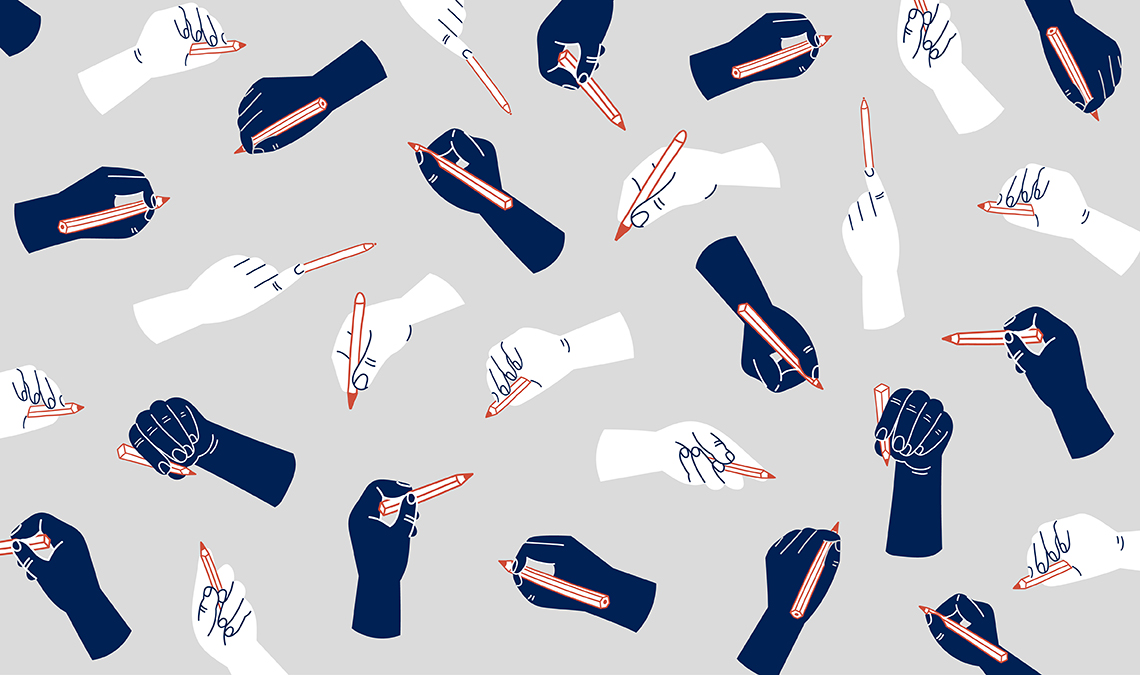
State of handwriting education
At TypeTogether, we are currently conducting research into the state of handwriting education for the Latin script, and we would appreciate your help.
Our goal is to create a free and open-source resource for the typographic and educational communities, offering a comprehensive view of how cursive writing is taught around the world and what letterform styles are used for its instruction.
To better understand how cursive writing instruction happens in real classrooms, we need the help of those who can give us a peek into the handwriting models and teaching methods employed in local schools, the textbooks popularly used in their regions, and how teachers adhere to governmental guidelines and new research about handwriting.